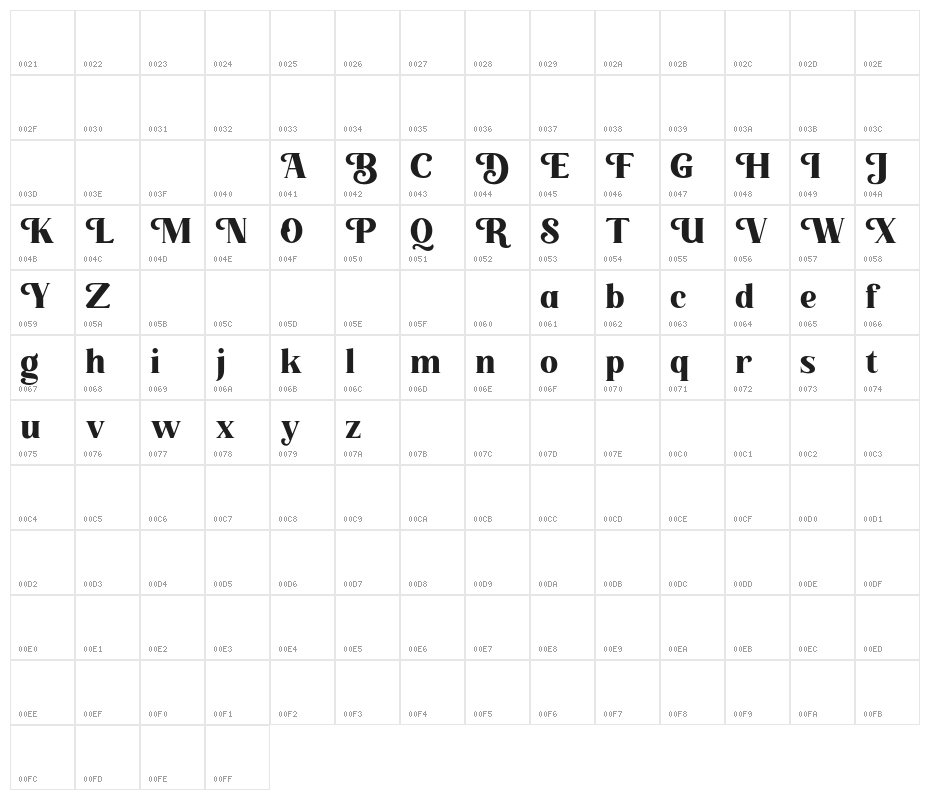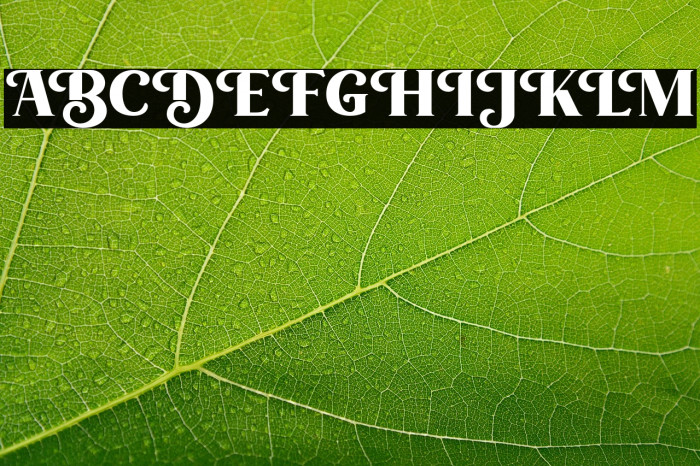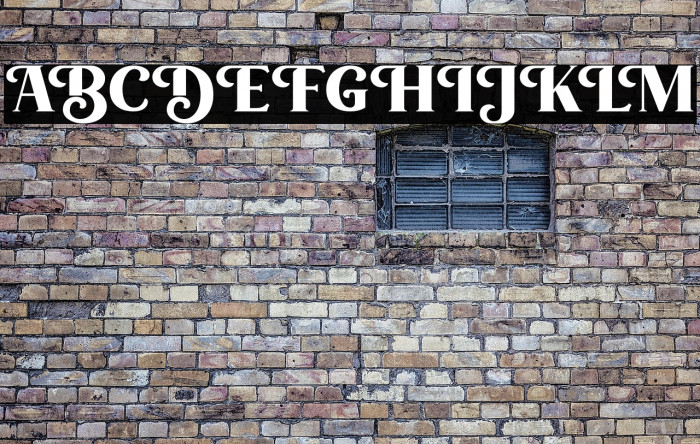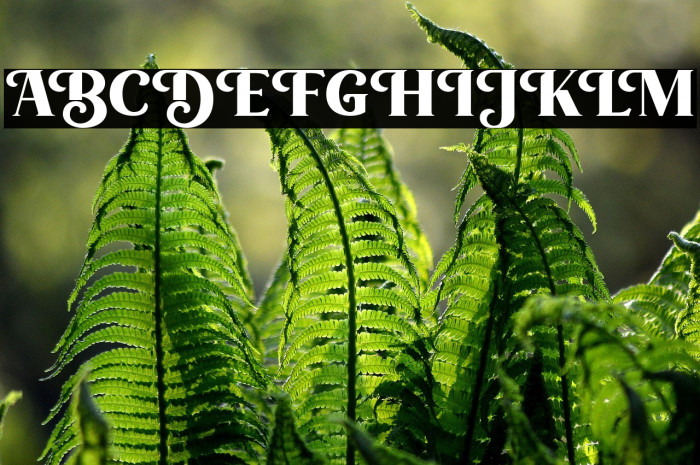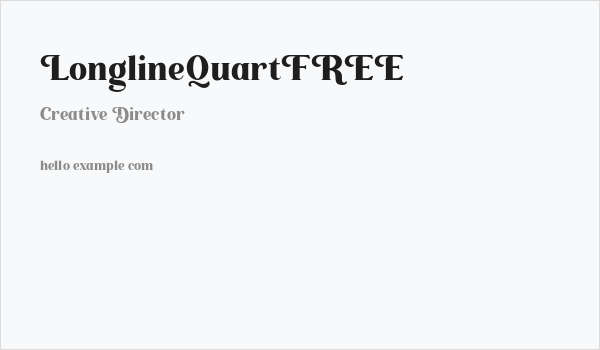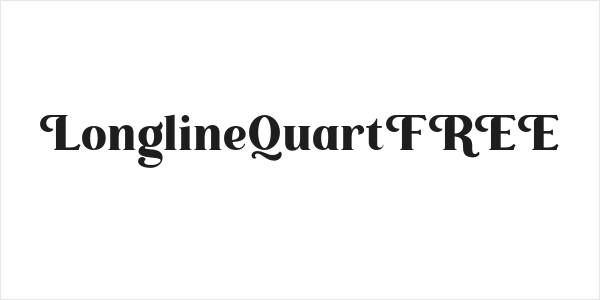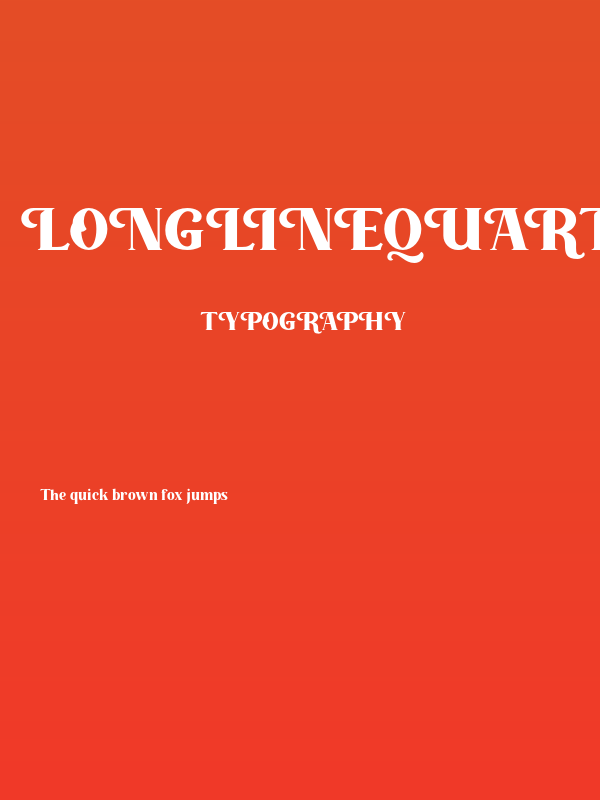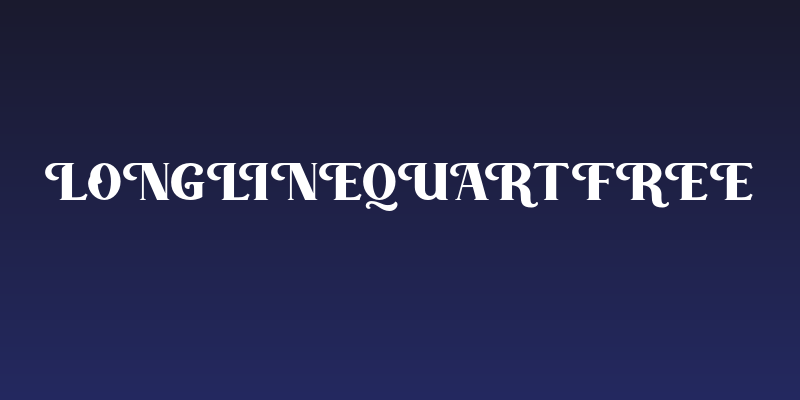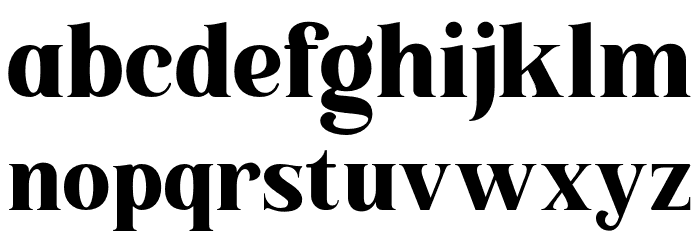
LonglineQuartFREE Font
LonglineQuartFREE Description
This font features a bold and decorative style with a unique flair in its design. The uppercase letters exhibit a distinct, ornamental quality with swirls and curves that add a touch of elegance and sophistication. The lowercase letters maintain a consistent boldness, with some characters featuring subtle embellishments that enhance their visual appeal. The numerals are equally bold, ensuring readability while maintaining the decorative theme. Special characters are designed to match the overall aesthetic, making them suitable for creative and artistic projects.
| Proposed Projects | Ideal for branding, logos, invitations, and artistic projects that require a touch of elegance and creativity. |